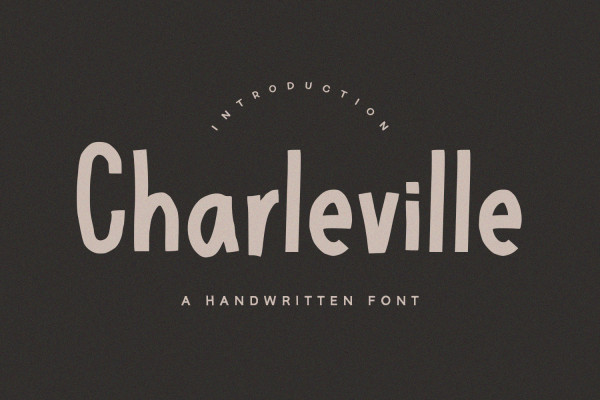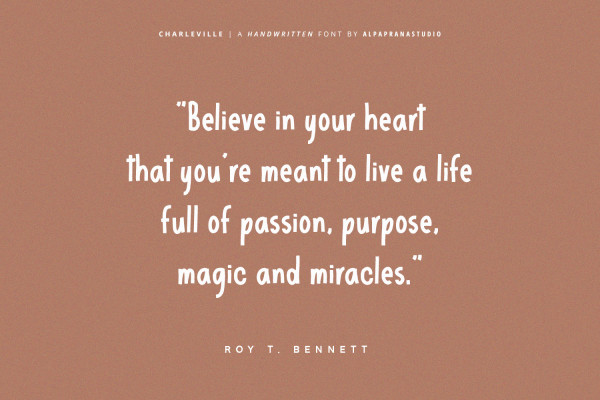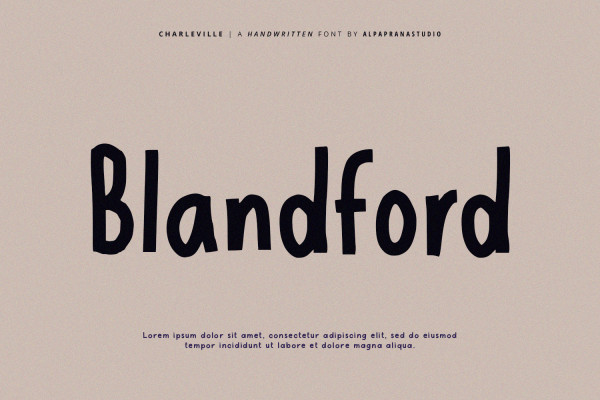
Charleville Font
Charleville Font is a handwritten font with modern feels. It will be perfectly used for Branding, Logo Design, Lettering, Logotype, Clothing, Poster, magazine, packaging, posters, shopping bags, t-shirts, book covers, photography, special events and other design project.  Charleville Font
Charleville – Handwritten Font